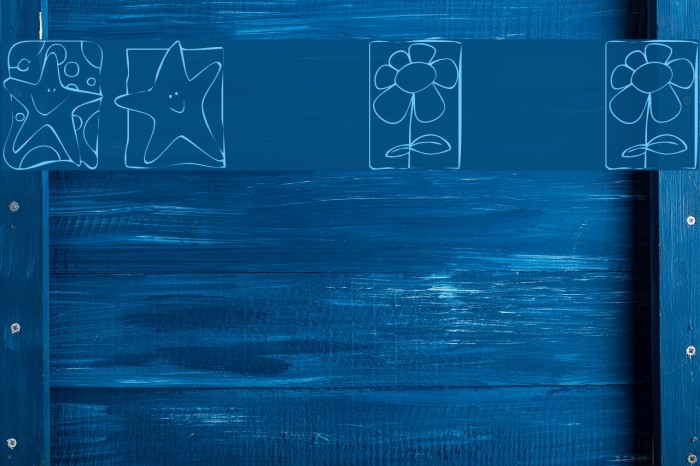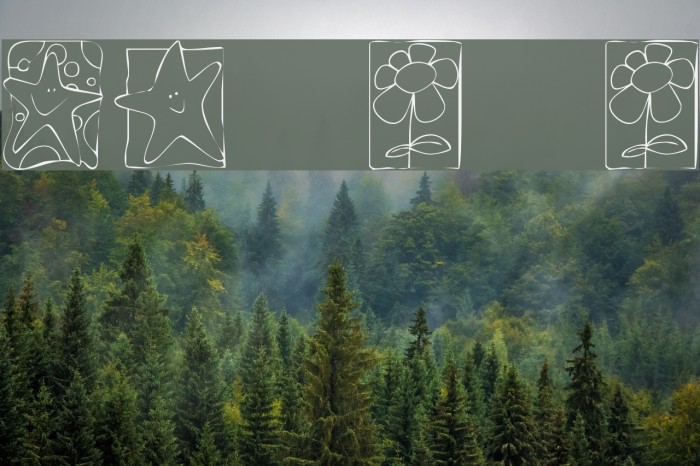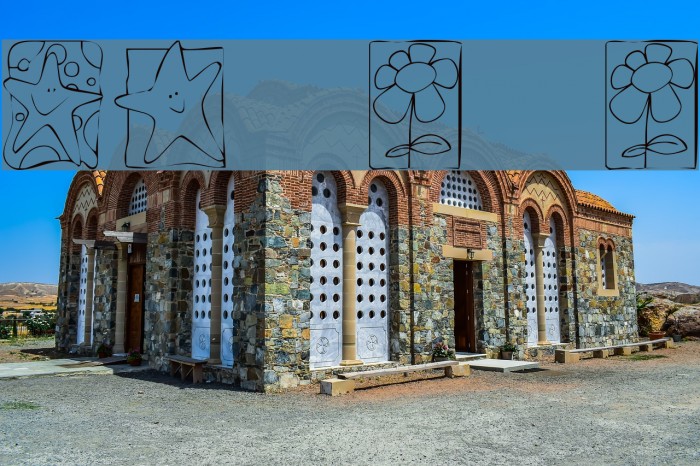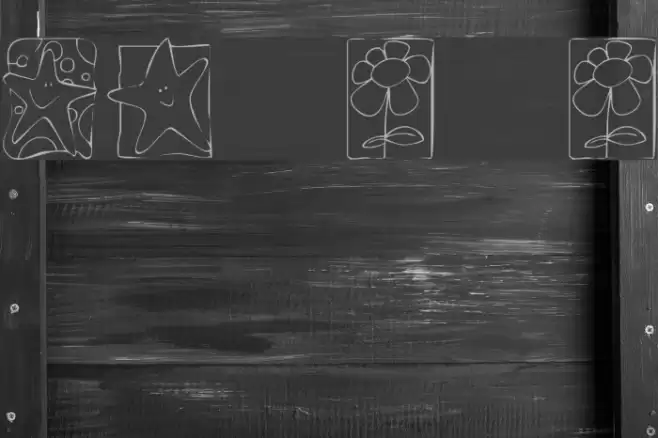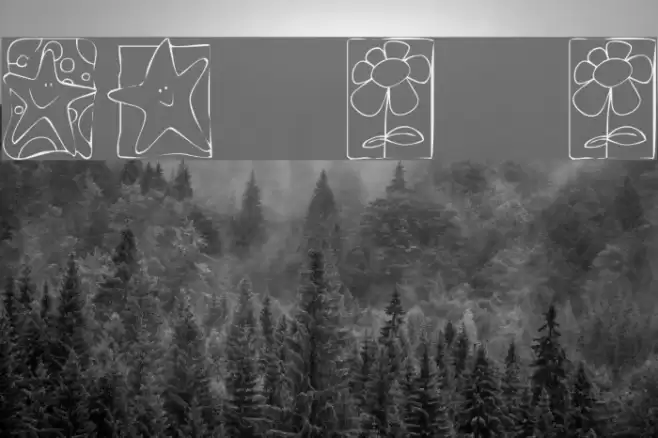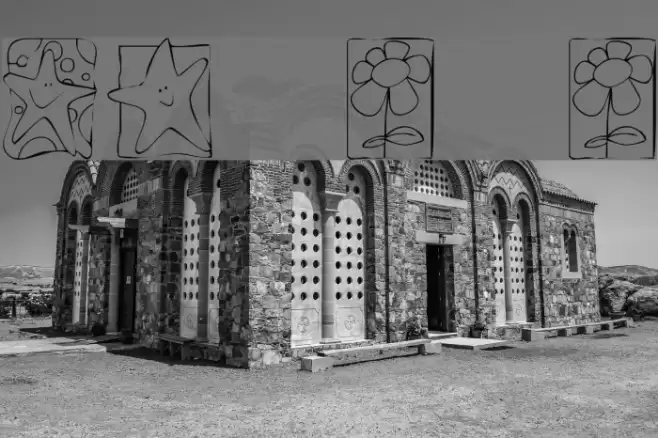
KR Scrappin Squares Font
This decorative font features a series of whimsical, hand-drawn illustrations enclosed within square frames. Each character is uniquely designed with playful and imaginative elements, ranging from animals and nature motifs to abstract shapes. The style is reminiscent of doodles or scrapbook embellishments, offering a charming and artistic touch. The font is primarily decorative, with each character serving as a standalone piece of art rather than a traditional letterform. The overall design is light-hearted and creative, making it suitable for projects that require a fun and informal aesthetic.
A decorative font with whimsical, hand-drawn illustrations in square frames.
- Proposed Projects: Ideal for scrapbooking, greeting cards, children's book illustrations, and playful graphic design projects.
- Use Case: Logos, Decorative elements